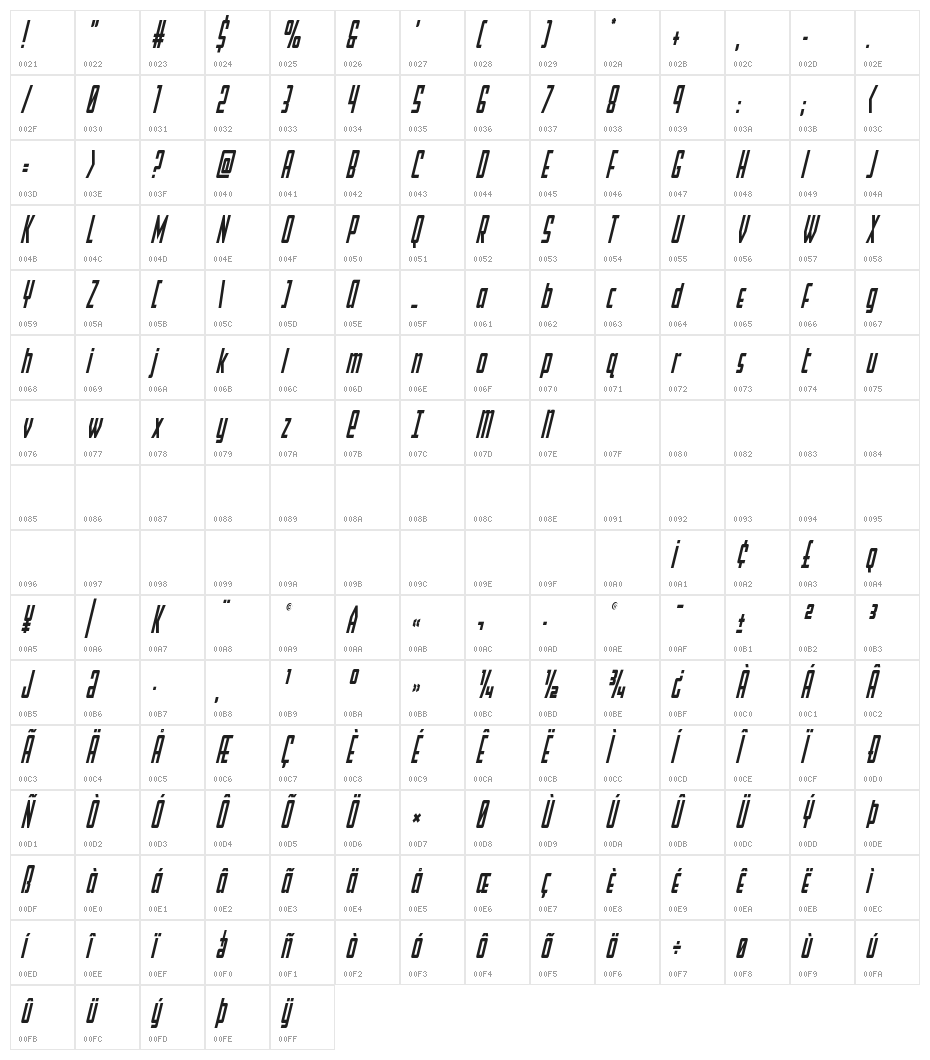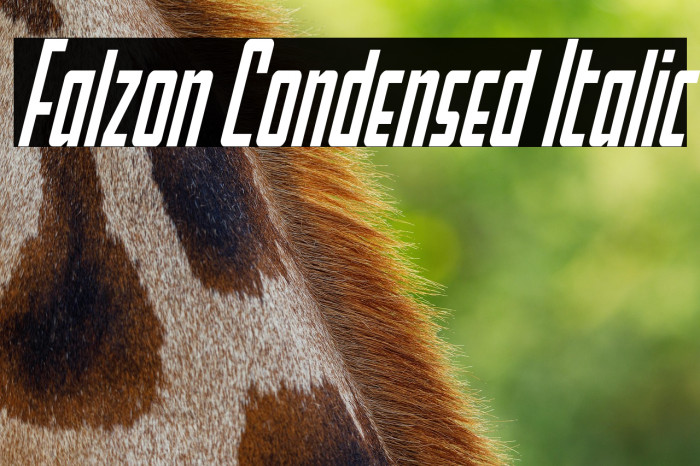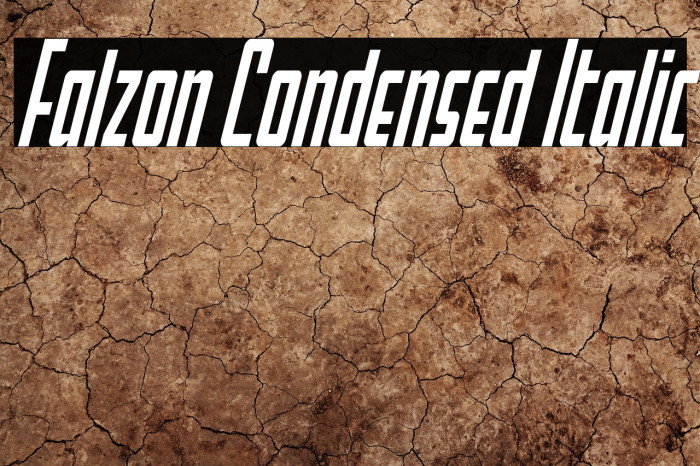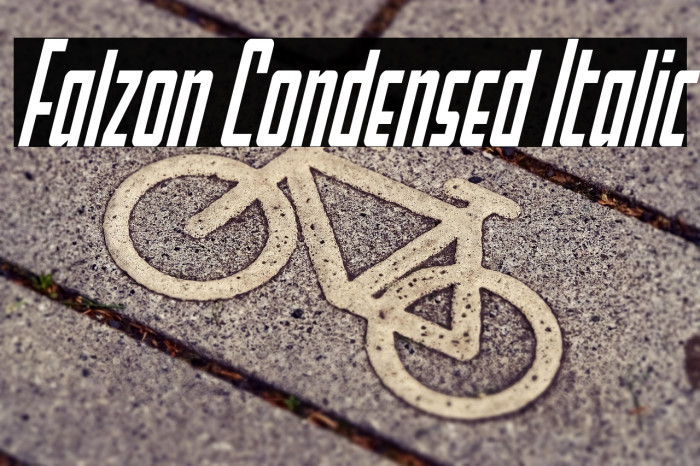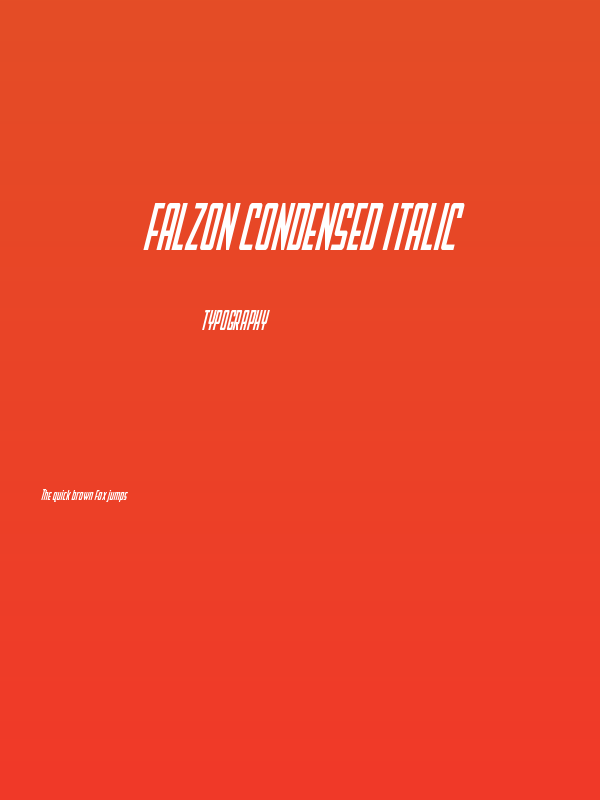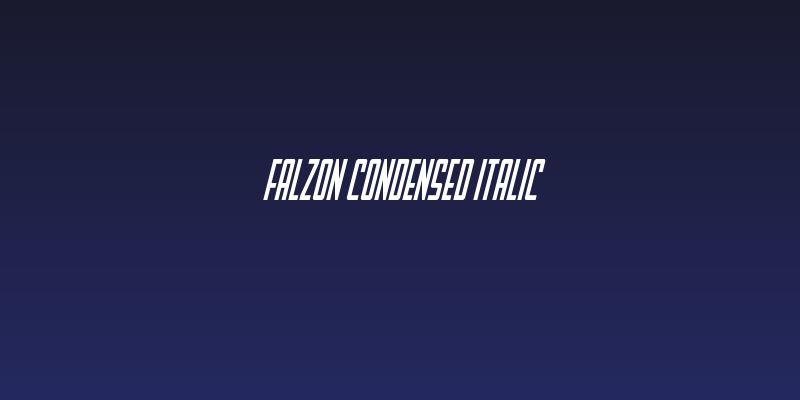
Falzon Condensed Italic Font
Falzon Condensed Italic Description
This font features a dynamic and modern design with a condensed and italicized style. The characters are sharply angled, giving a sense of movement and speed. The uppercase and lowercase letters maintain a consistent height, contributing to a uniform appearance. The numerals are distinct and align well with the overall aesthetic. Special characters are integrated seamlessly, enhancing the font's versatility. The condensed nature of the font allows for efficient use of space, making it ideal for attention-grabbing headlines and impactful designs.